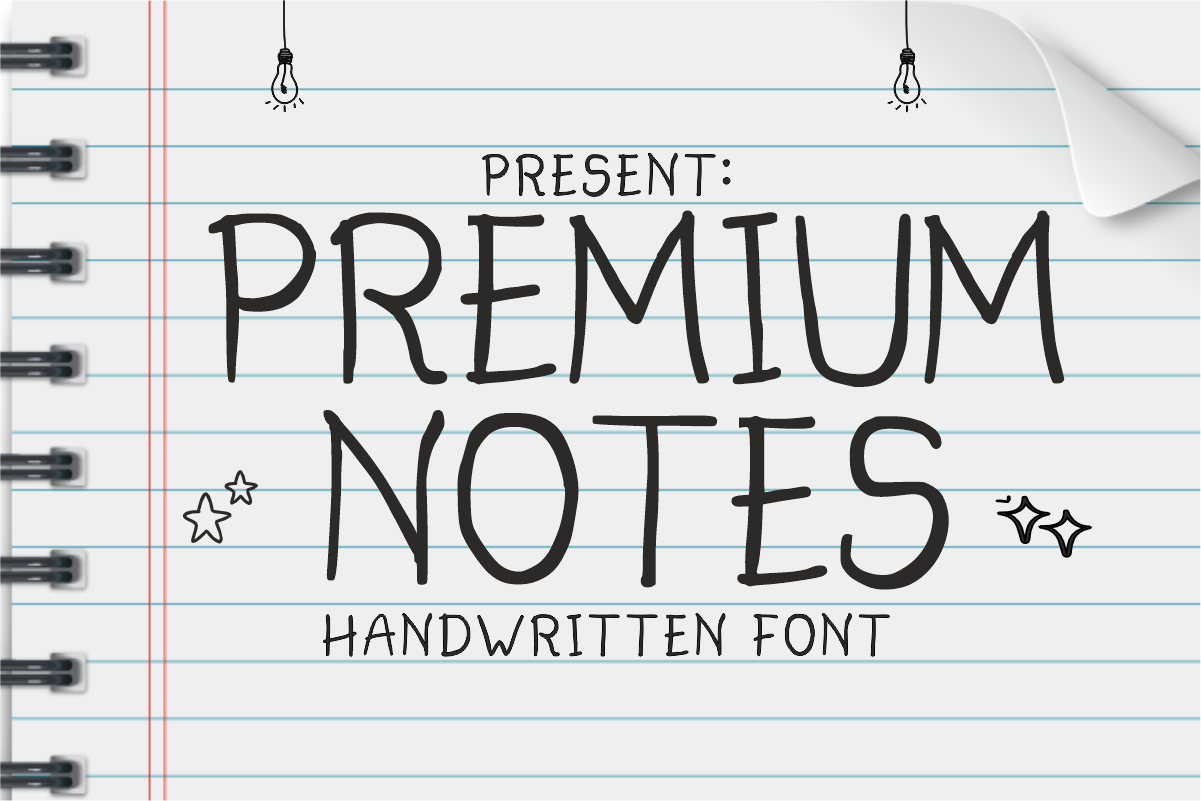
Premium Notes - Handwritten Font
Premium Notes - Clean Handwritten Display Font
Capture the effortless charm of neat handwriting with Premium Notes! this tall, stylish monoline font brings an authentic notebook aesthetic to your digital screens and print layouts alike. It’s designed to give your headlines a clean, organic, and perfectly legible human touch.
Perfect for digital planners, educational resources, and minimalist branding, Premium Notes masterfully pairs a casual, hand-drawn look with absolute clarity. It is highly versatile, elegant, and fully optimized for seamless integration across premium digital cutting tools and professional print workflows.
All-Caps Character Set (Tall, clean, handwritten uppercase letters)
Numbers & Basic Punctuation (Essential, simple symbols included)
Digital Planners, GoodNotes Journals, & Daily To-Do Lists 🗓️
Teacher Resources, School Worksheets, & Classroom Graphics 🎒
Cricut, Silhouette, & Minimalist DIY Craft Sublimation ✂️
Social Media Quotes, Instagram Stories, & Aesthetic Blogs 📱
Clean Product Packaging, Cafe Menus, & Custom Stationery 🏷️